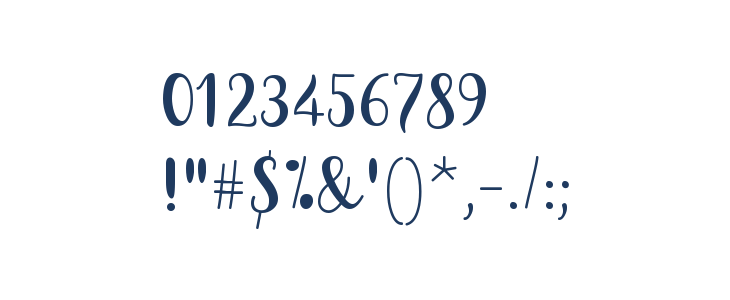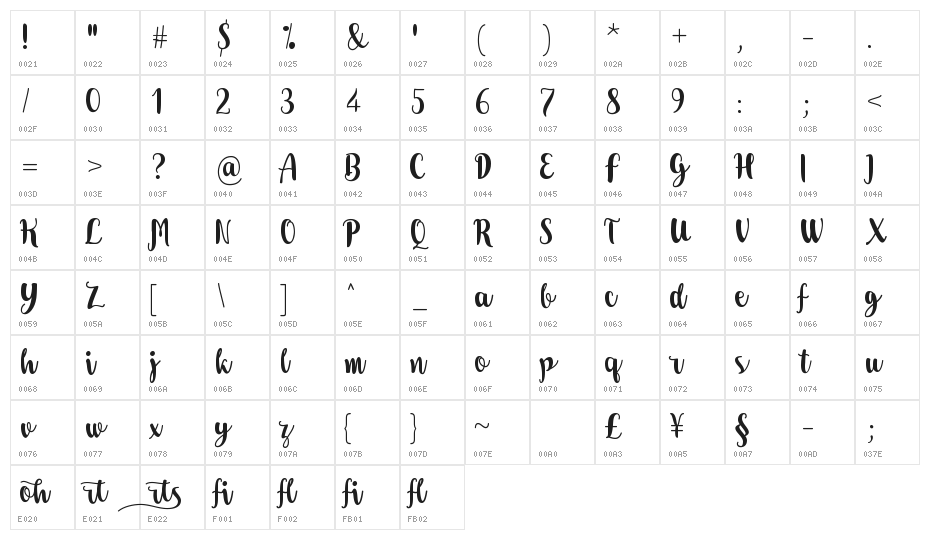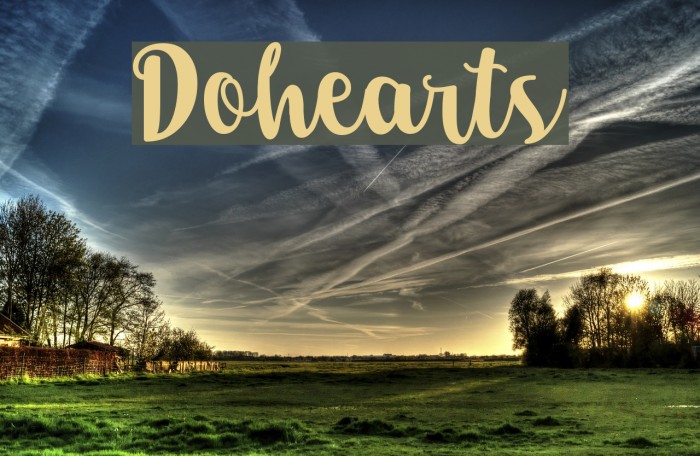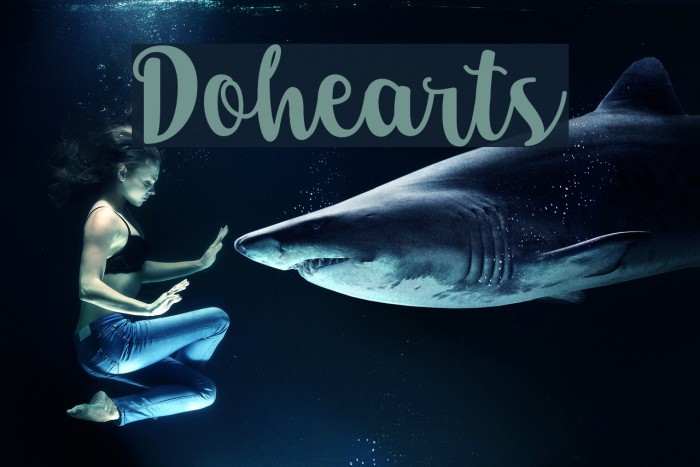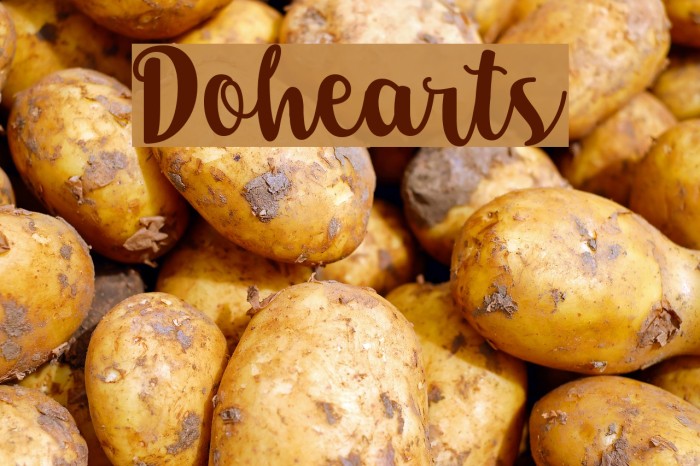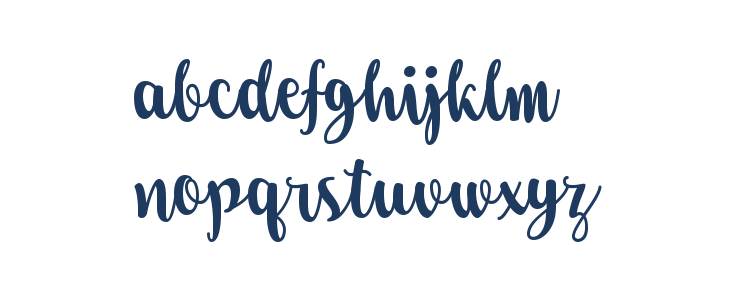
Dohearts Font
Dohearts Description
This font features a playful and expressive script style with a handwritten appearance. The characters are fluid and dynamic, showcasing a mix of thick and thin strokes that add a lively rhythm to the text. The uppercase letters are bold and prominent, while the lowercase letters maintain a consistent flow with elegant loops and curves. Numbers and special characters are designed to match the overall aesthetic, ensuring a cohesive look across all text elements. The font's whimsical nature makes it suitable for creative and informal applications.
| Use Case | Logos, Headlines, Invitations |
| Proposed Projects | Ideal for greeting cards, invitations, branding, and social media graphics. |